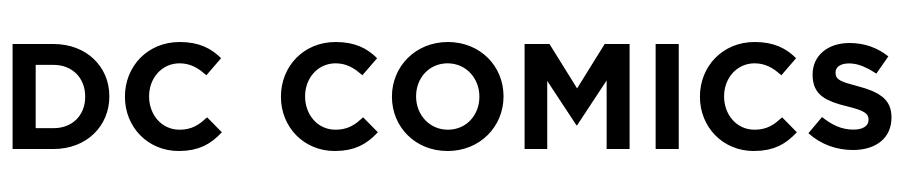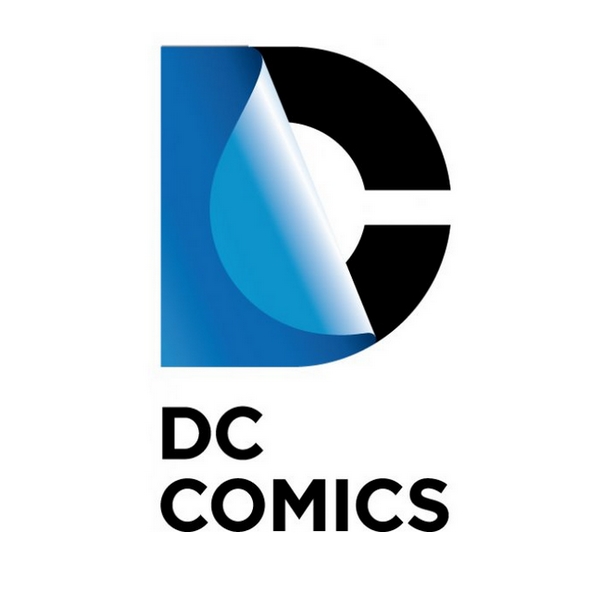
DC Comics Font
Fonts in UseDC Comics is an American comic book publisher and multimedia company known for creating iconic superheroes such as Superman, Batman, Wonder Woman, and The Flash.
The DC Comics logotype likely uses Gotham Bold font by Hoefler & Frere-Jones, which is a commercial font. However, in 2016, DC Comics replaced their peel-back logo with a new circled monogram logo designed by Pentagram, featuring custom chiseled letters not available as a font.